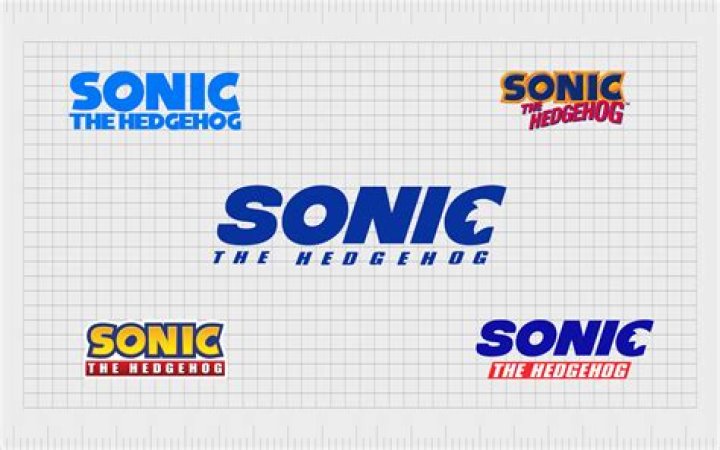
What font is the Sonic logo in?
Sonic Font The font used for its logo is probably Futura Bold Italic, a geometric sans designed by Paul Renner in 1927. You can view more details about it here.
What kind of font is used in Sonic the Hedgehog?
Sonic the Hedgehog and Sega Fonts Gaslight Regular Font – Used in the Sonic the Hedgehog 2 Cutscenes Andes Font – Used in the Sonic the Hedgehog 3 Cutscenes Sonic the Hedgehog Title Font Sega – The Font used in the Sega Logo Sega Game Gear – The Font used in the Sega Game Gear Logo Sega Genesis – The Font used in the Sega Genesis Logo